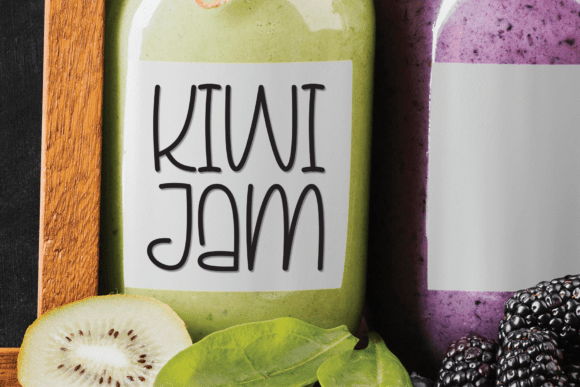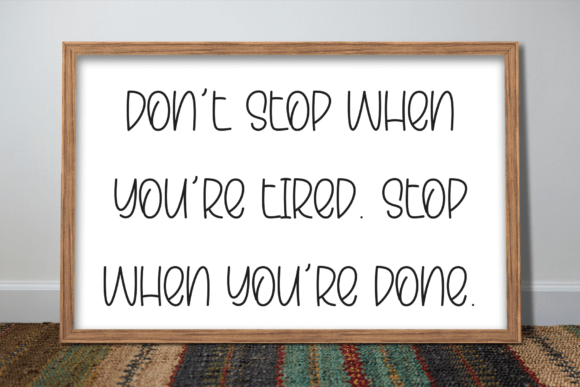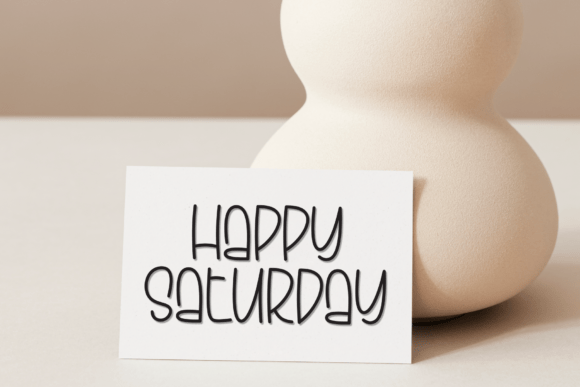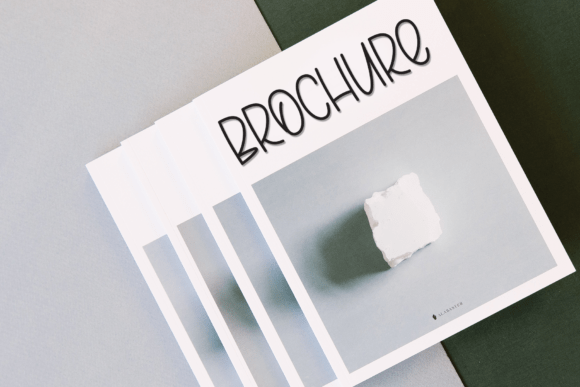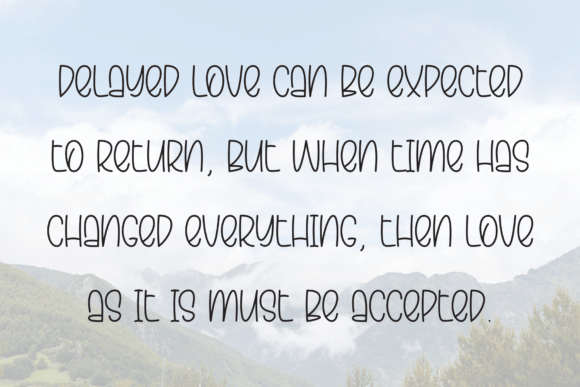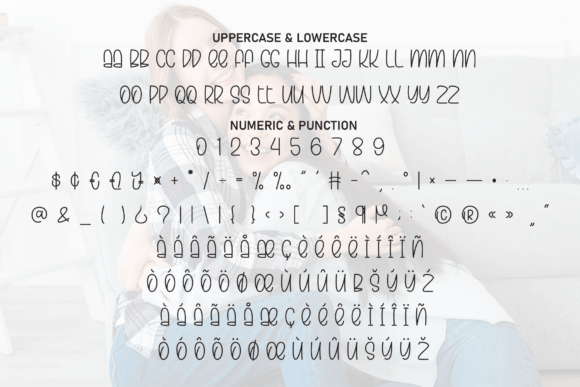
Introduction to Happy Daughter Font
Happy Daughter is a lighthearted and modern monolinear font designed with a “creative style” in mind.
The typeface features tall, vertically elongated letterforms with a consistent stroke weight and distinctively rounded, playful loops Its casual, hand-drawn structure makes it feel personal and authentic.
Key Features of Happy Daughter Font
Why Choose Happy Daughter Font?